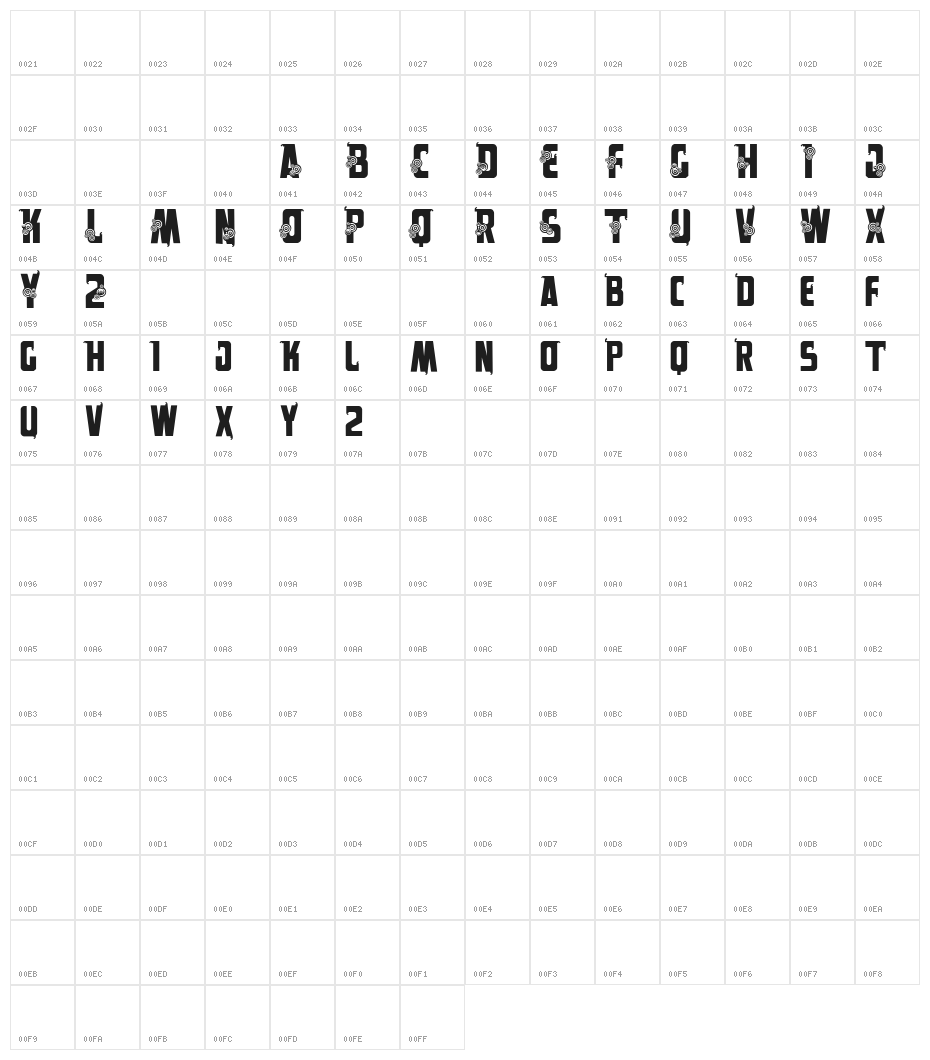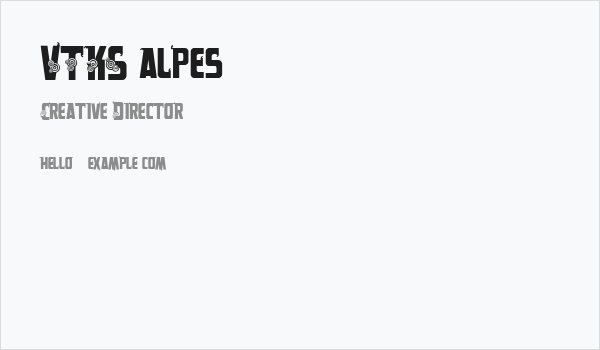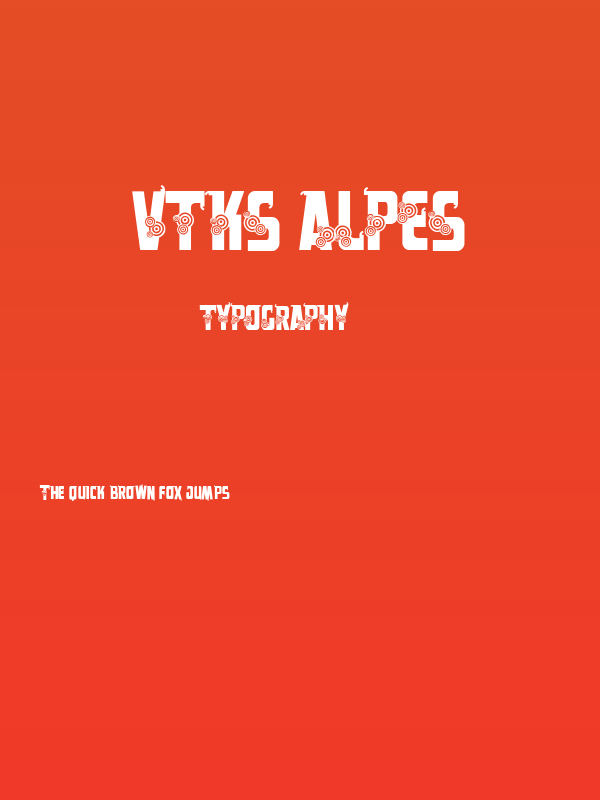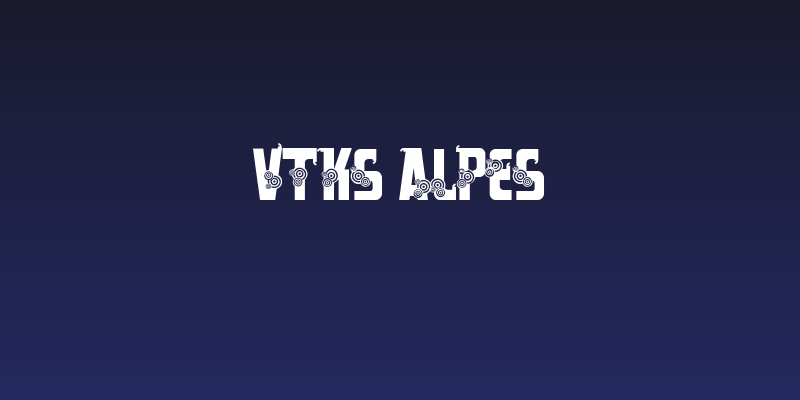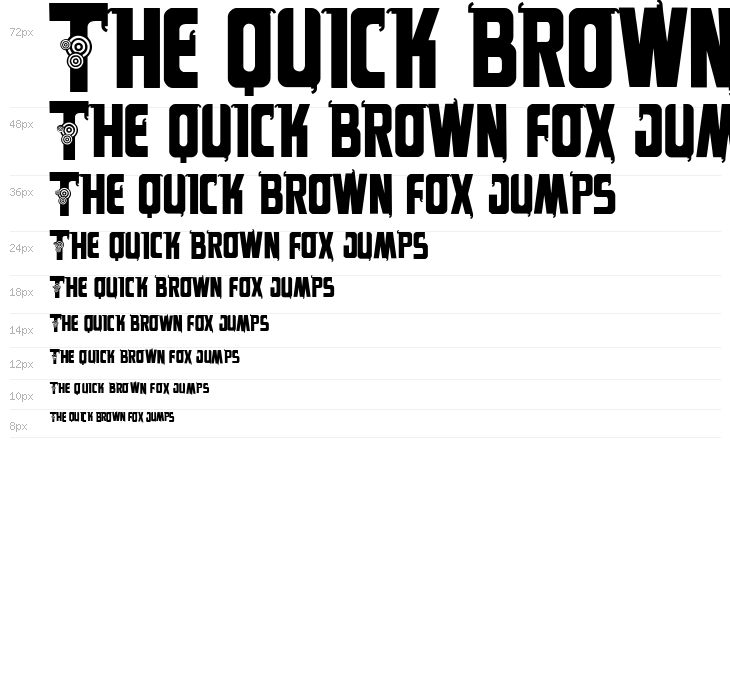
VTKS alpes Font
VTKS alpes Description
This font features a bold and decorative style with unique spiral embellishments on certain characters, adding an artistic flair. The uppercase letters are strong and impactful, while the lowercase letters maintain a consistent boldness. The numbers and special characters are designed to match the overall aesthetic, making it suitable for eye-catching designs. The font's distinct style makes it ideal for creative projects where a statement is needed.
| Proposed Projects | Ideal for posters, album covers, branding, and any project requiring a bold, artistic touch. |